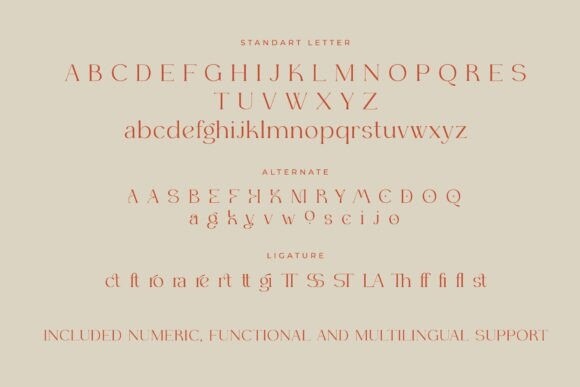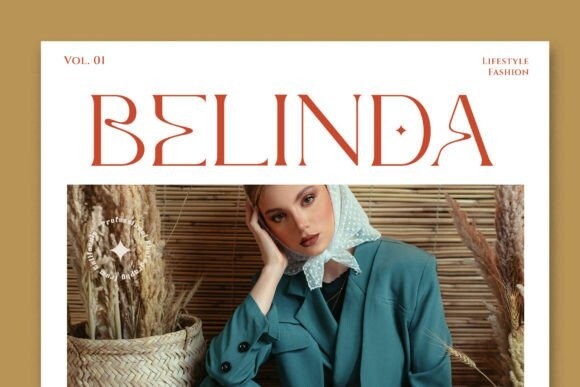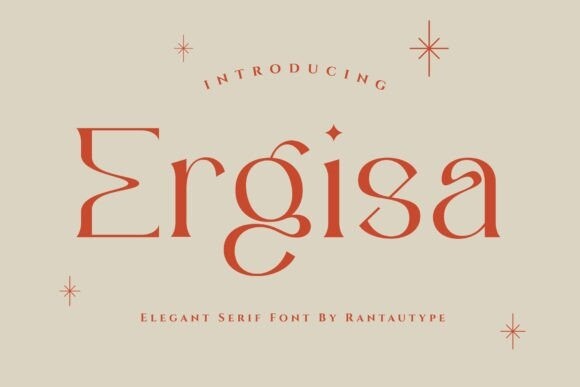
Ergisa Font
Designer: RantauType
Ergisa Font is a thin, stylish, and elegant serif font that exudes sophistication and refinement. With its slender letterforms and graceful serifs, Ergisa brings a sense of timeless beauty to any design project, from wedding invitations and editorial layouts to branding materials and signage.